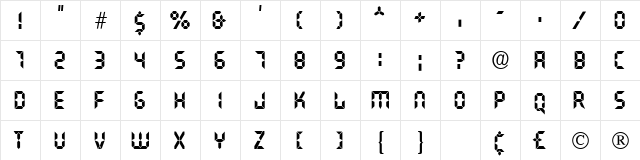
LCD Display Caps SSi Regular
LCD Display Caps SSi is built around its visual character rather than neutral utility — its distinctive forms are designed to make an impression at display sizes.
Font Pairing: Pair with a clean neutral sans-serif for body copy to let LCD Display Caps SSi's character lead without overwhelming the composition.
Pro Tip: Use LCD Display Caps SSi exclusively at display sizes — it was designed to be seen, not read at length. Let a neutral companion handle body copy.